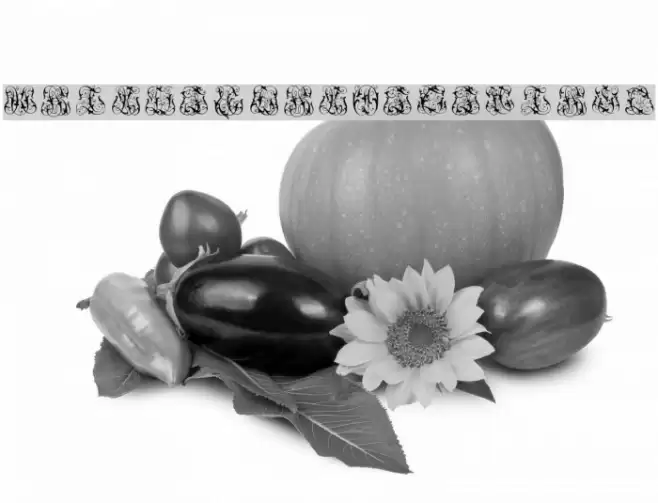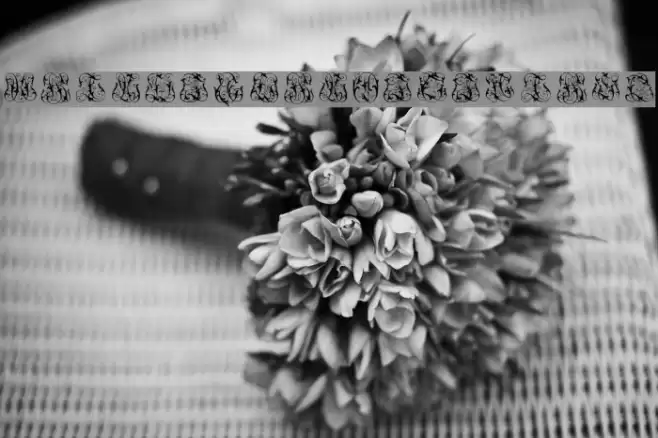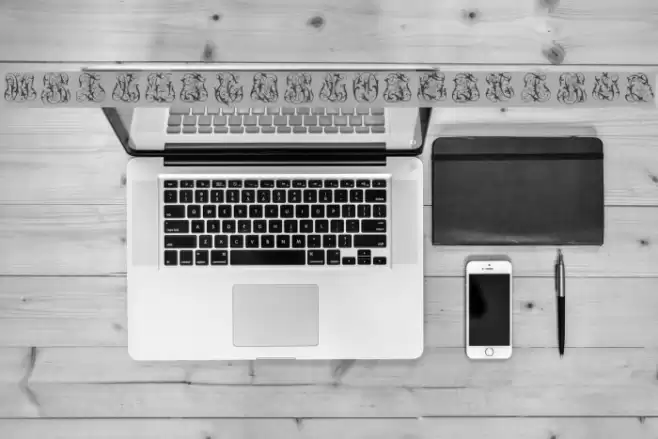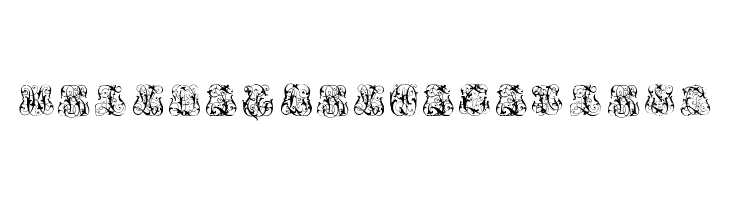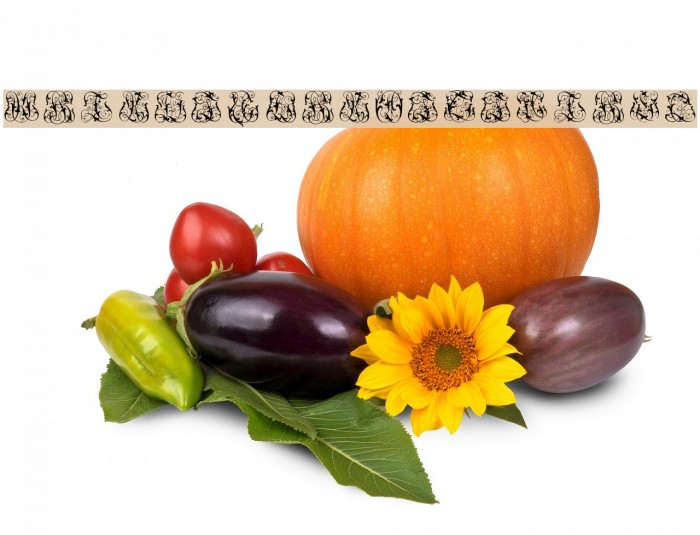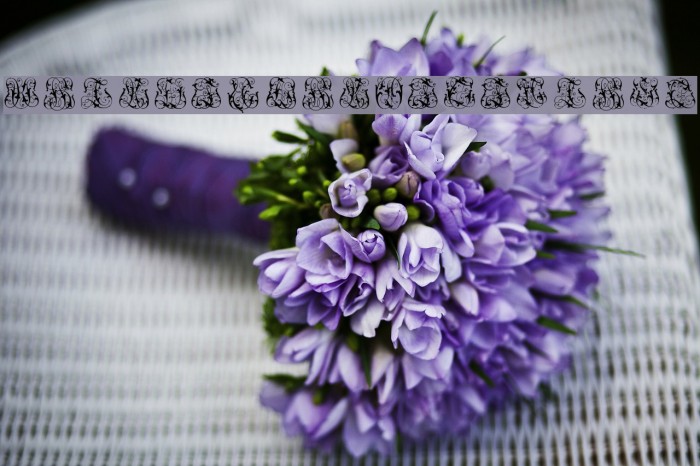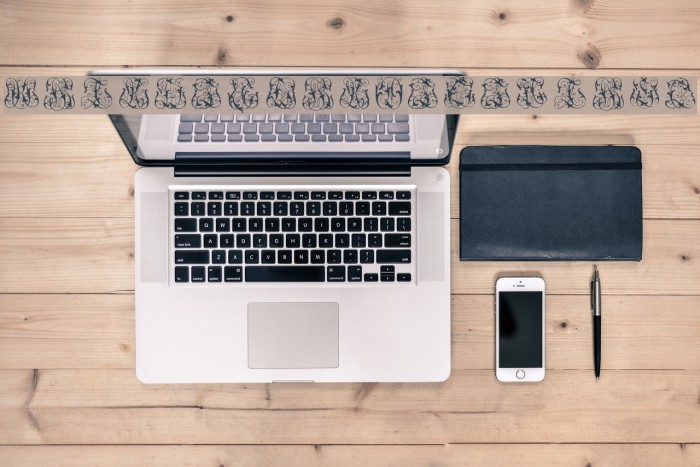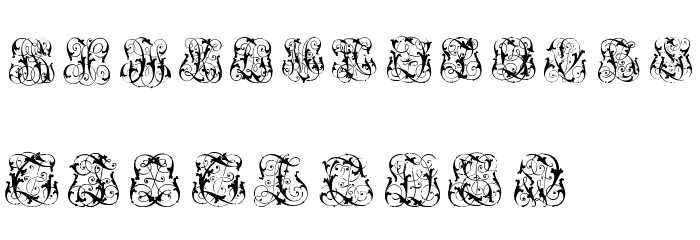
HardtoReadMonograms Font
HardtoReadMonograms Description
This font is an intricate and highly decorative style, characterized by elaborate swirls and flourishes that intertwine with each letter. The ornate design makes each character appear as a unique piece of art, with a strong emphasis on aesthetic appeal over readability. The complexity of the design suggests a historical or vintage influence, reminiscent of classical monograms or calligraphic styles. The font's intricate details create a sense of elegance and sophistication, making it suitable for special occasions or artistic projects where visual impact is prioritized.
An intricate, decorative font with elaborate swirls and flourishes from Gothic fonts.
- Proposed Projects: Ideal for wedding invitations, luxury branding, decorative monograms, and artistic projects requiring a touch of elegance.
- Character Spacing: Tight
- Overall Style: Vintage
- Use Case: Logos, Invitations, Decorative Monograms